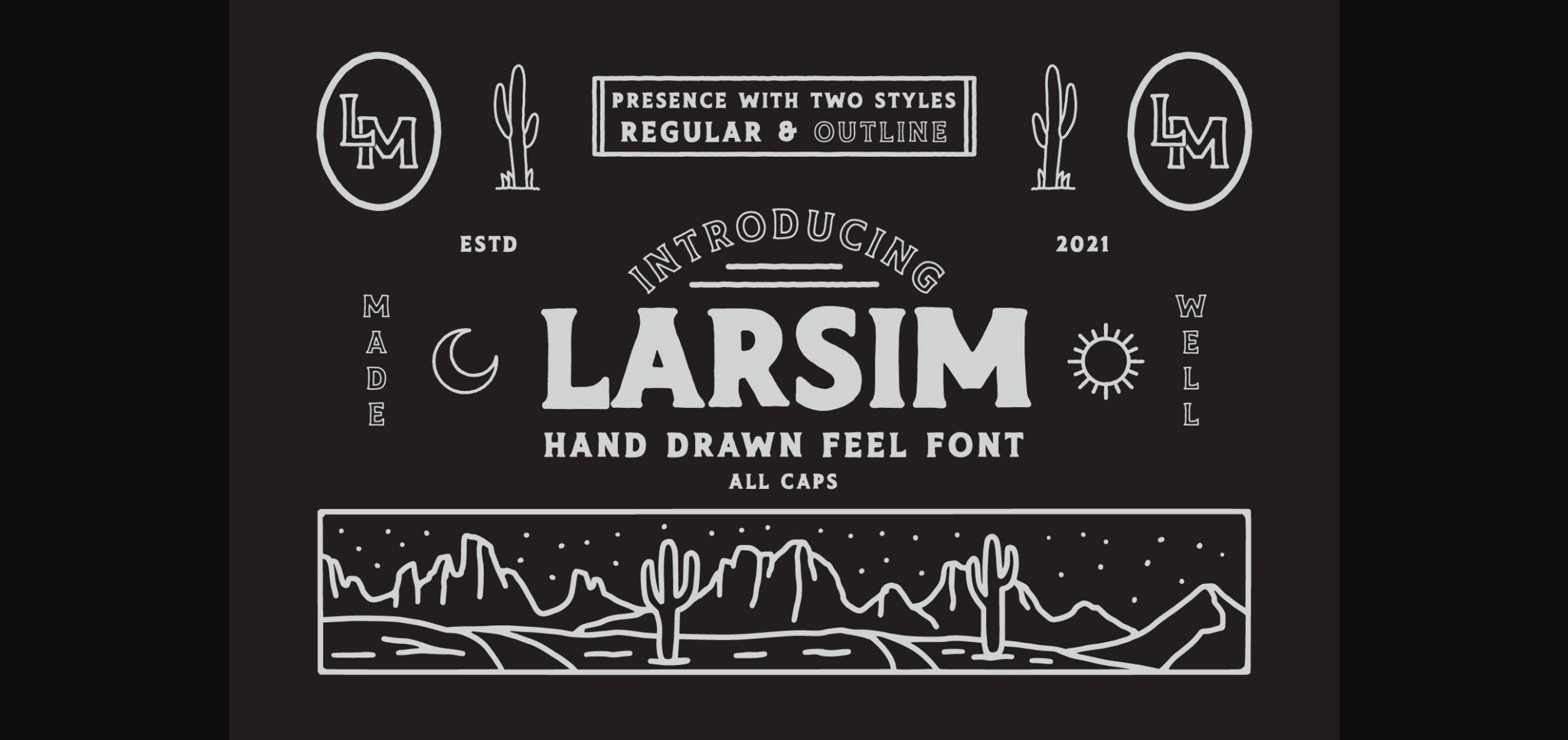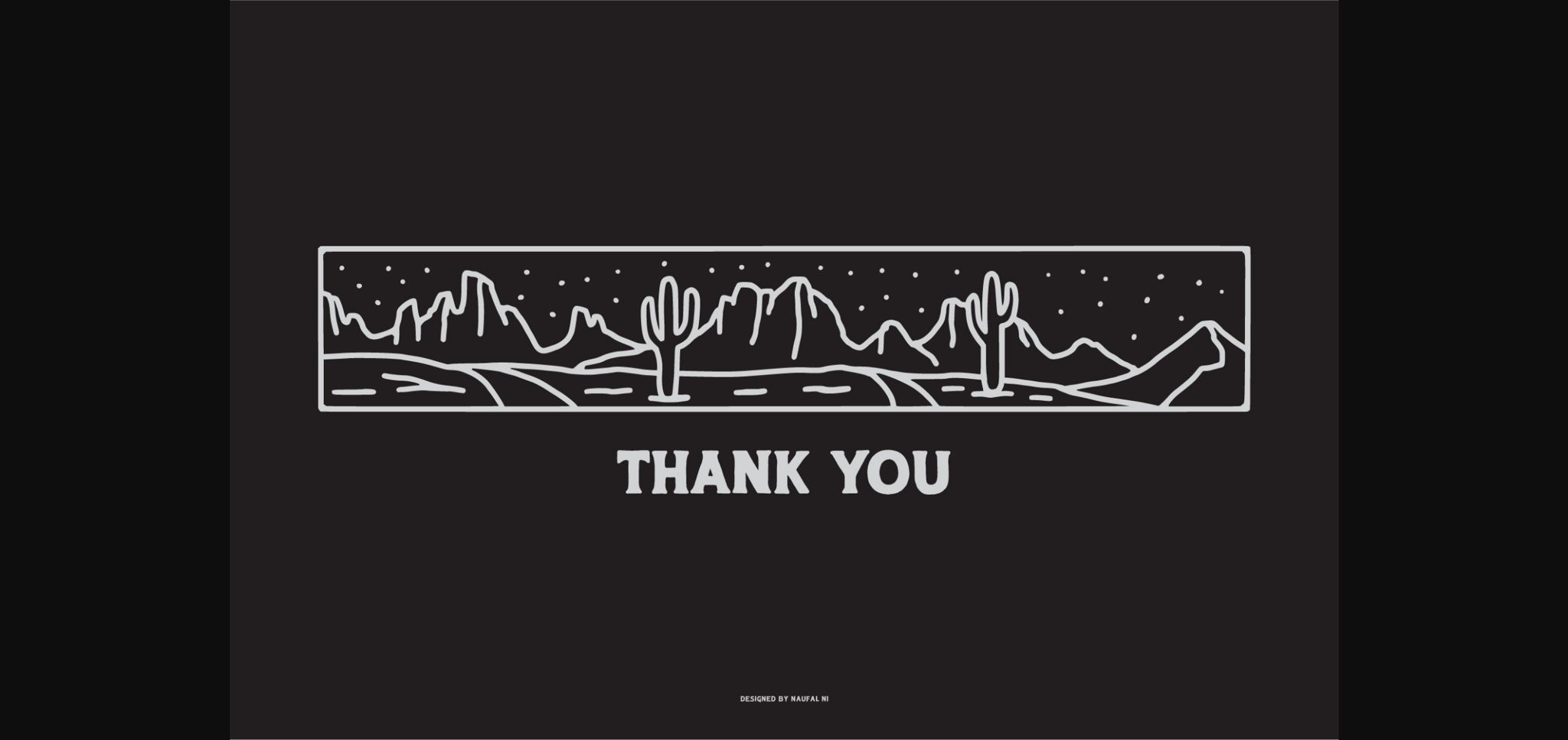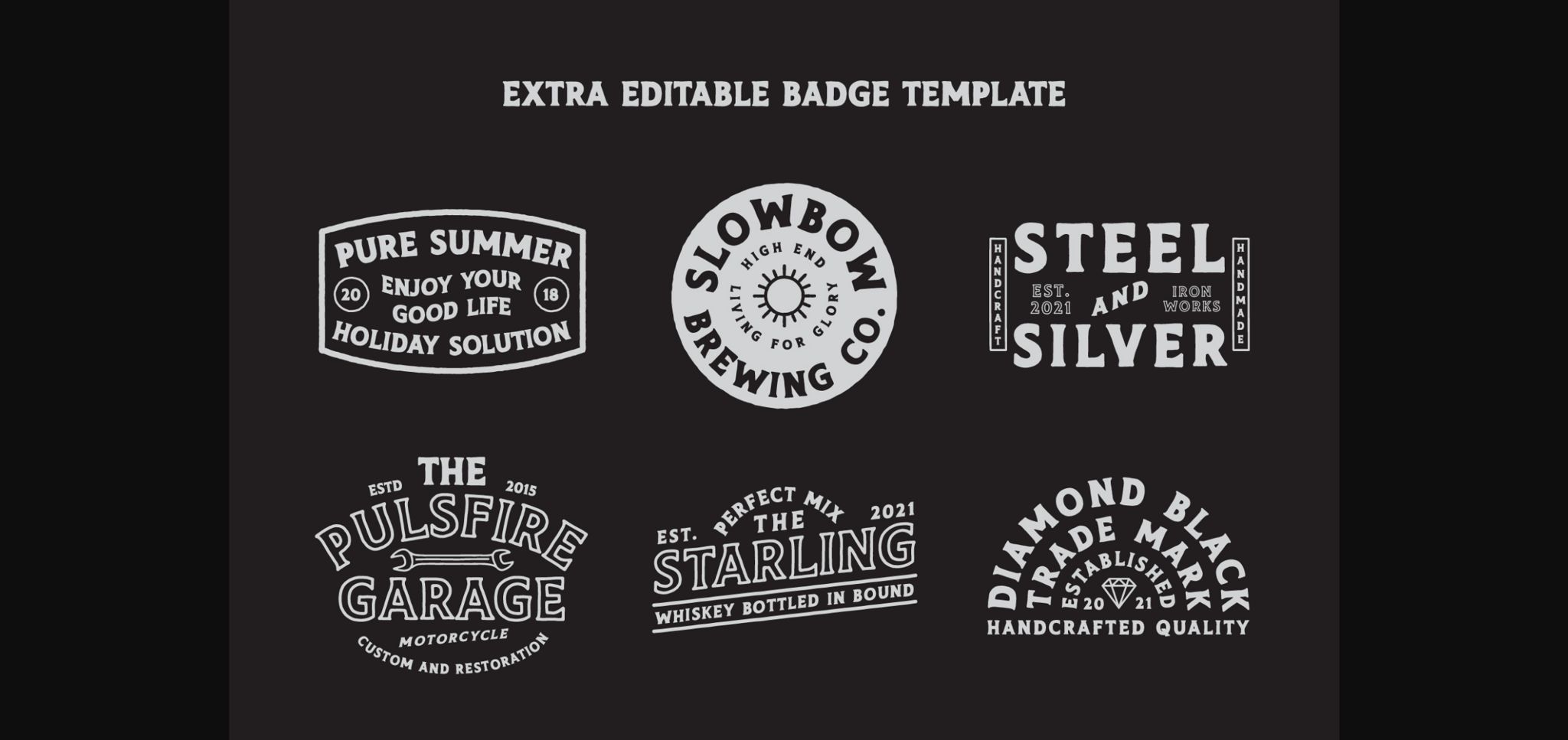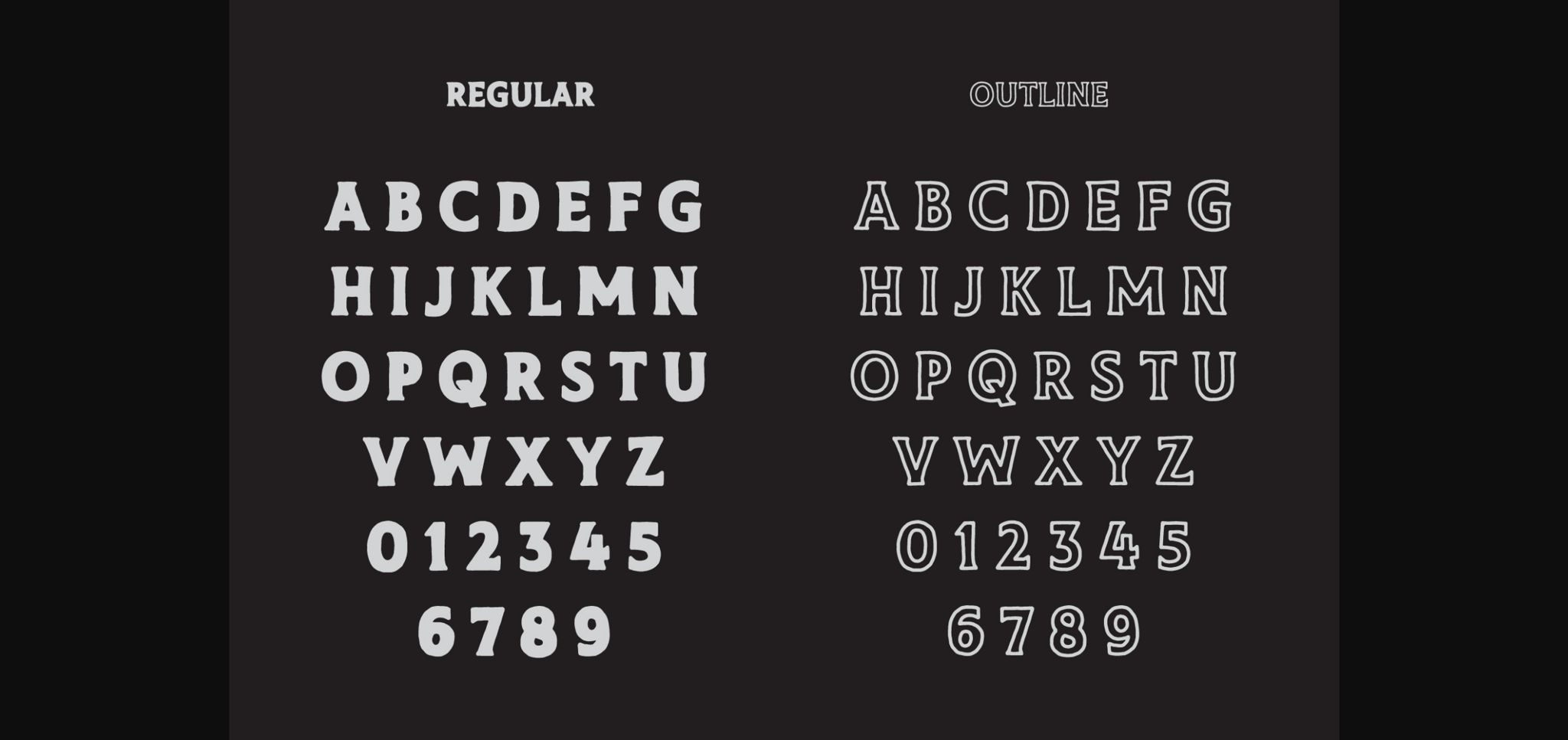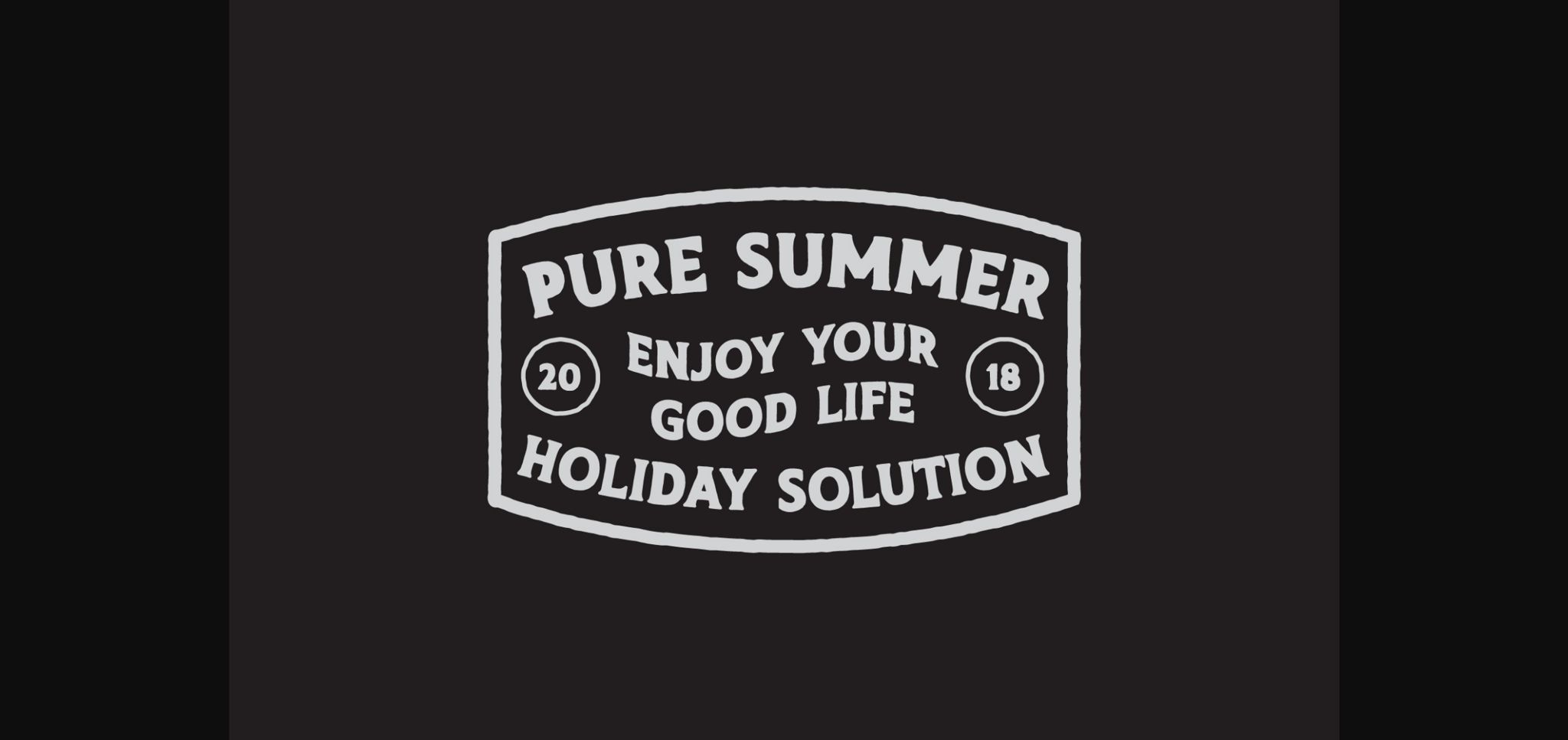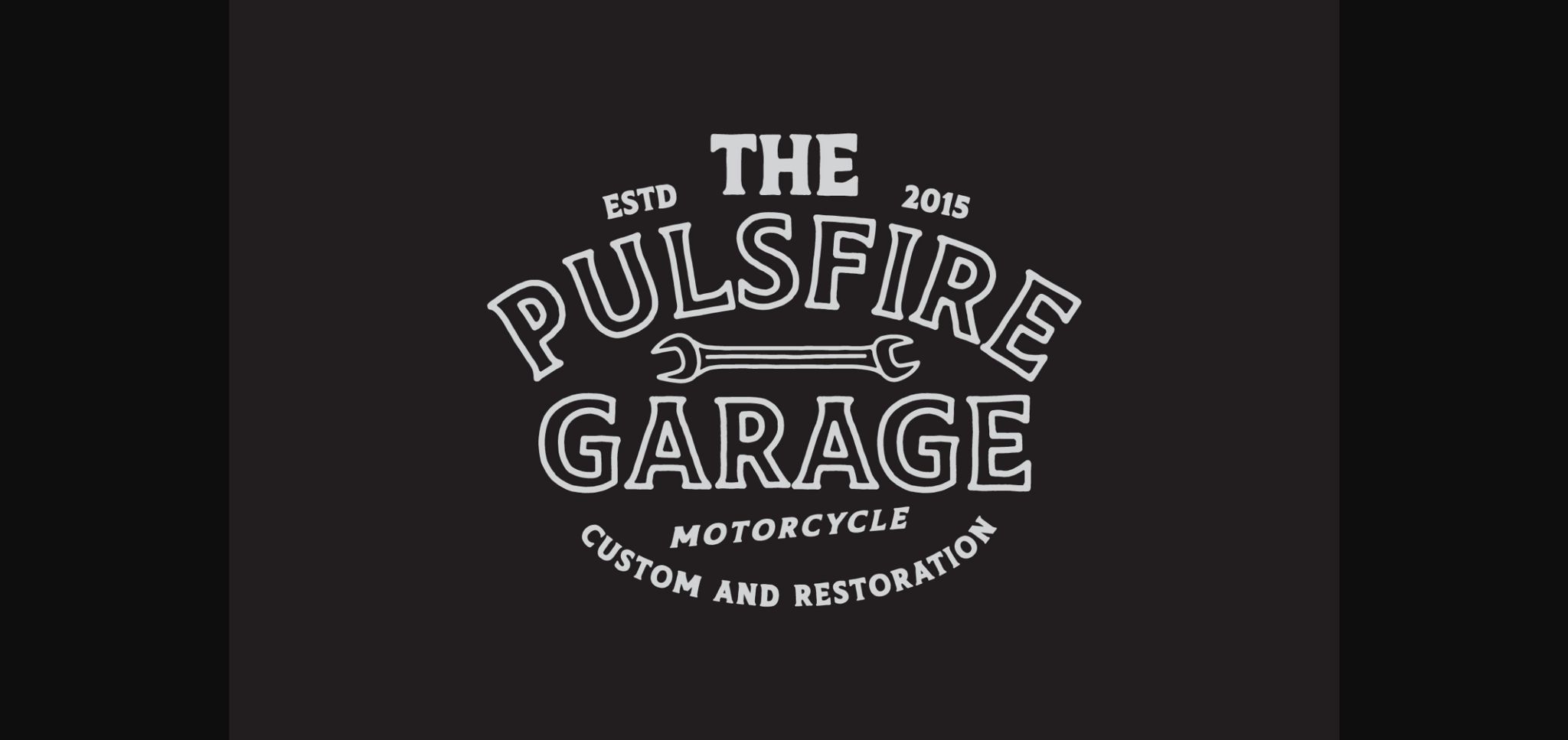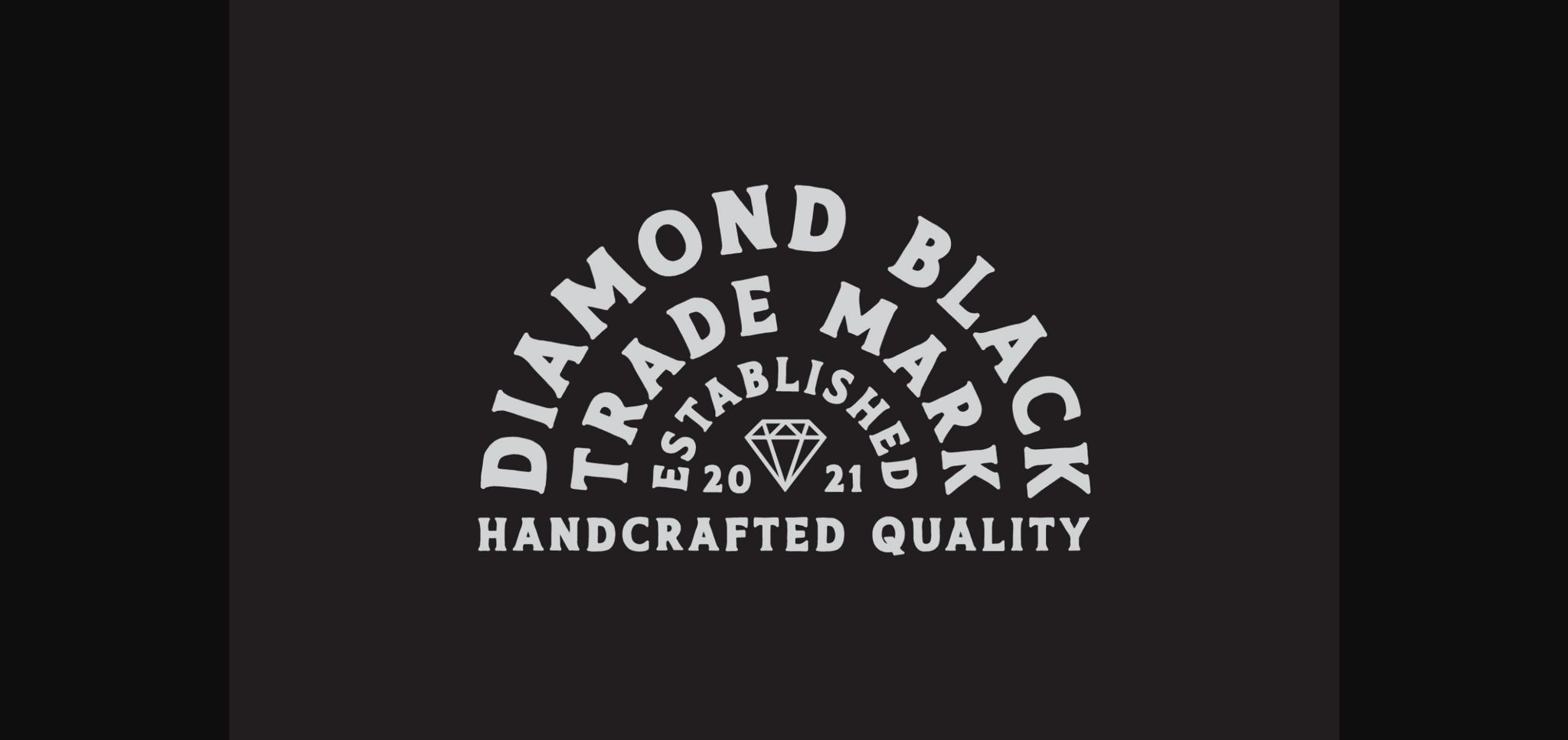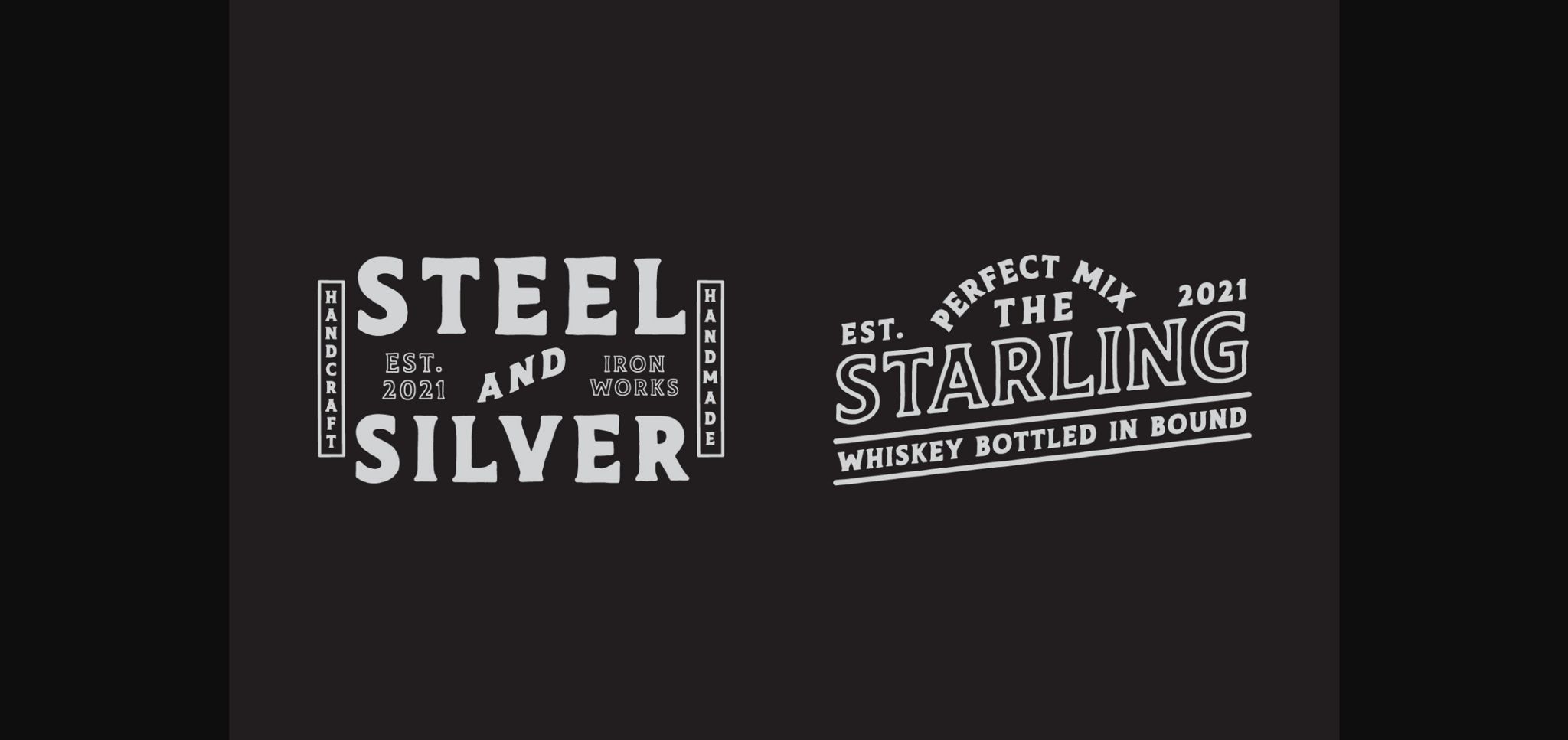
HomeSans Serif FontsLarsim Font Sans Serif Fonts Larsim Font FacebookXPinterestWhatsApp 1 of 10 ... Larsim Font Poster 2... Larsim Font Poster 3... Larsim Font Poster 4... Larsim Font Poster 5... Larsim Font Poster 6... Larsim Font Poster 7... Larsim Font Poster 8... Larsim Font Poster 9... Larsim Font Poster 10... About Larsim Font Larsim is a casual sans serif font. With its neat and beautiful arrangement of letters, this typeface will look outstanding in both formal and non-formal designs. DOWNLOAD NOW People also explored Jodie Garland Script Font Deforest Font Lovina Family Font Affiliate Mastery Font Flores Font Outfit Scotties Font Barsime Alghul Signature Font 470 0 TagsLarsimLarsim Font Previous articleGreece FontNext articleSelena Marin Font LEAVE A REPLY Cancel reply Comment: Please enter your comment! Name:* Please enter your name here Email:* You have entered an incorrect email address! Please enter your email address here Website: Save my name, email, and website in this browser for the next time I comment. Personal Use Free Breather Personal Use Free Read more about this font Helsinki Personal Use Free Read more about this font William Personal Use Free Read more about this font Rennoya Personal Use Free Read more about this font BLOG Fonts That Capture the Spirit of New York City New York City is more than just a place—it’s an experience, a rhythm, a visual language... Transform Your Website: Elevate Your Typography with 7 Best Web Font Generators Free vs Paid Fonts: Why Investing in Premium Fonts Is Worth It To increase your work productivity, choose the most readable fonts.